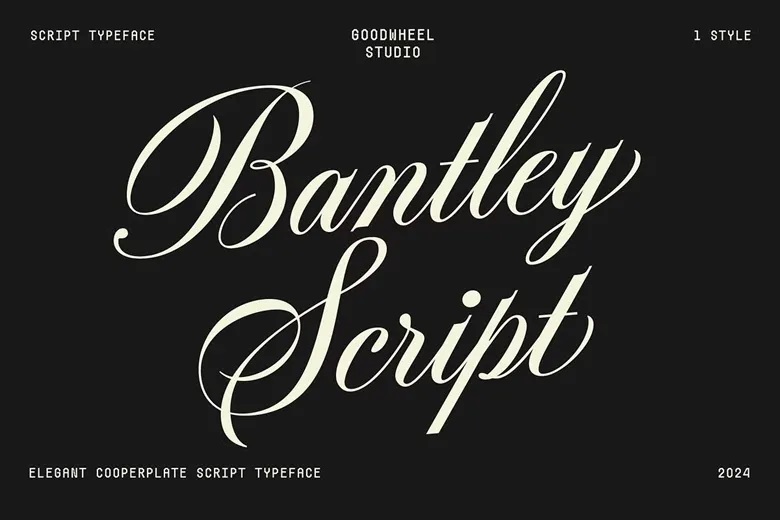
Bantley Font
Bantley is a new script calligraphy font, including Regular. This font is both friendly and lovely, and has swashes. It is a perfect solution for different design solutions. Bantley’s light touch and natural movements are reminiscent of the age old tradition of the calligrapher, elegance included.
Bantley helps you achieve a calligraphic style that is fashionable and elegant, perfect for any work. Take your text and make it look like a piece of art.
Bantley Calligraphy Script Font